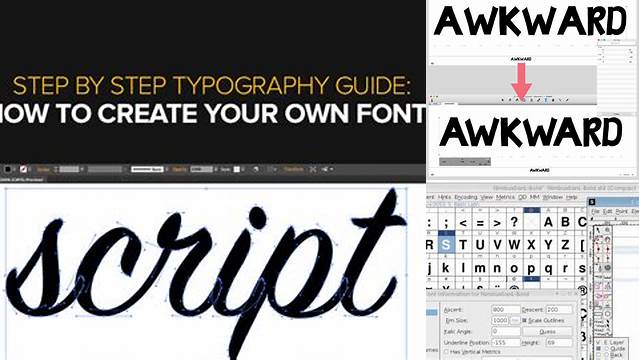
Hey guys! Ever thought about designing your own font? It's seriously cool, and guess what? You don't need to be a tech wizard or spend a fortune. With a free font creator, you can turn your handwriting, doodles, or even just your ideas into a unique font that you can use everywhere. Think of it – your own personal typeface! This guide will walk you through everything you need to know, from choosing the right software to exporting your finished font. Let's dive in and get creative!
H2: Diving into the World of Free Font Creation
So, what exactly is a free font creator? Well, it's a software program that lets you design and build your own fonts without any cost. These tools usually provide a range of features, from basic letter-drawing tools to more advanced options like kerning and hinting. The beauty of it is that you can create a font that perfectly matches your style or a specific project, something that's impossible to get from generic, pre-made fonts. Imagine designing a font for your website, a personal project, or even to sell online! The possibilities are endless. What makes this even more exciting is the fact that you can start with absolutely zero experience in font design. The programs are generally user-friendly, and there are tons of tutorials available online. The journey to creating your own font is a learning experience, and it is extremely satisfying to see your own font come to life and use it. The initial setup will include the process of selecting the right software. This will ensure a smooth journey into font creation. Different software comes with different advantages, so it is important to do your research. Then, get ready to unleash your creativity and have fun with it! Don't be afraid to experiment with different styles, shapes, and sizes until you find something you love. There's no right or wrong way to do it, so just enjoy the process of creating something unique. And don't forget to practice regularly; the more you practice, the better you'll become at designing fonts.
H3: Understanding the Basics of Font Design
Before jumping into a free font creator, let's get a grip on some fundamental design concepts. First, you need to grasp the core components of a font: glyphs, which are the individual characters (letters, numbers, symbols). Then, there's the font's structure: the x-height, ascenders, descenders, and baseline, which help define the character's proportions. These elements work together to create the overall look and feel of your font. Consider how your letters connect. Do they have serifs (the small lines at the end of strokes) or are they sans-serif (without serifs)? The spacing between letters (kerning) and the spacing between lines of text (leading) also play crucial roles in readability. Experimentation is key! Try sketching out your letters on paper first. This gives you a feel for the forms. Think about the purpose of your font. Is it for headlines, body text, or display purposes? Each of these scenarios will require a different design approach. A good headline font might be bold and eye-catching, while body text needs to be highly legible. Don't be afraid to borrow inspiration. Study existing fonts, analyze what makes them work. However, remember not to copy! Instead, create your own unique style. Learning the basic concepts will save you a lot of time and effort later. Always check the kerning and spacing of your font. These two factors are crucial for readability. Be prepared to experiment, and have fun creating!
H2: Choosing the Right Free Font Creator Software
Alright, now it's time to find the perfect free font creator for your needs. Several excellent options are available, and the best one for you will depend on your experience level and the features you need. Some popular choices include FontForge, a powerful and open-source program suitable for experienced users. BirdFont is another great option, with an emphasis on vector graphics. Its user-friendly interface makes it perfect for beginners. Online font creators, like Calligraphr, are another good option, especially if you prefer working directly in your browser. When choosing, think about ease of use. If you're a beginner, a program with a simple interface and clear tutorials is ideal. Consider the features that are available. Do you need advanced kerning or hinting controls? Is it easy to create different weights (e.g., bold, italic) of your font? Check for compatibility with your operating system (Windows, macOS, Linux). Make sure the software supports the font formats you need (TTF, OTF). Read reviews and watch tutorials. See what other users say about the program. This will give you valuable insights into its strengths and weaknesses. Try out a few different programs to see which one suits your workflow the best. Some creators offer free trials or limited versions, which lets you test the waters before you commit. Take your time. Research and comparison are the keys to finding the perfect tool for creating fonts.
H3: Exploring the Features of Different Font Creation Tools
Let's take a deeper dive into the features offered by various free font creator tools. FontForge, for instance, is packed with advanced features, including support for complex scripts, hinting (optimizing the font for different screen resolutions), and OpenType features (ligatures, alternates, etc.). BirdFont emphasizes ease of use, with intuitive tools for drawing glyphs and creating a visually appealing font. It offers a good balance of features for beginners. Online tools like Calligraphr allow you to create a font based on your handwriting. You can print templates, fill them in with your handwriting, scan them, and upload them to generate a font. This approach is perfect for those who want to digitize their handwriting or create a personal signature font. Some tools offer direct drawing capabilities, allowing you to create glyphs from scratch within the program. Others let you import existing vector graphics (e.g., from Adobe Illustrator or Inkscape). Most tools include kerning and spacing adjustments, which are critical for fine-tuning the appearance of your font. You'll want to experiment with these settings to ensure your font looks professional and readable. Don't be afraid to look for features that may suit your needs. A good program will help you streamline your workflow and create high-quality fonts.
H2: Step-by-Step Guide: Creating Your First Font
Ready to create your first font with a free font creator? Here's a simple step-by-step guide:
- Plan your font: Decide on the style of your font. Sketch out your letters on paper or create a mood board for inspiration. Consider the intended use of the font (headline, body text, etc.).
- Create your glyphs: Open the software and begin drawing the glyphs. Start with the basic letters (A, B, C, etc.) and numbers (0-9). Some programs let you draw directly, while others let you import vector files.
- Adjust spacing and kerning: Use the kerning and spacing tools to adjust the space between each letter. This is very important for readability.
- Add characters: Add special characters and symbols. This is very important in creating a complete font.
- Test your font: Test your font in a text editor or design program. Make sure all characters look good and readable.
- Export your font: Export your font in the desired format (TTF or OTF). Once the font is exported, you can install it on your computer.
- Install your font: Install the font on your computer. Then, you can use it in your projects.
H3: Designing Your Glyphs: The Heart of Font Creation
Designing the glyphs is the heart of font creation using a free font creator. This is where your creativity shines! Start with the fundamental characters, like A, a, B, b, and the numbers 0-9. Sketch these out on paper first. This will help you visualize the forms and proportions. When you are ready, use the software's drawing tools to create the glyphs. Use vector-based drawing tools for sharp, scalable glyphs. Pay attention to the details – the curves, the lines, and the serifs (if your font has them). Consistency is key. Ensure all your glyphs share a consistent style and weight. Maintain consistent spacing between letters (kerning). A good font is a balanced font. Explore different styles – serif, sans-serif, script, etc. – and find one that suits your vision. Don't be afraid to experiment. Trying out different styles will help you to find something that you like. Use the software's tools to make adjustments. Most software allows you to make modifications to the design. Keep in mind the context of your font. Different fonts will look good on different projects. The goal is to create legible and appealing glyphs. You can use the tools that can help you make the process easier.
H2: Mastering Spacing and Kerning for Readability
Spacing and kerning are absolutely essential in font creation with a free font creator. These settings directly impact the readability and overall appearance of your font. Kerning refers to adjusting the space between specific letter pairs (e.g., VA, Wo, etc.). Poor kerning can make a font look awkward and hard to read. Spacing refers to the overall horizontal distance between characters. This includes the space around the letters. Begin by setting a consistent space for all characters. Then, manually adjust the space between pairs to improve their appearance. Many font creator tools offer automated kerning, but manual adjustments are usually necessary. Test your font extensively in different text sizes and contexts. Does it look good as headlines? As body text? Fine-tune the kerning and spacing until you are satisfied. Pay special attention to problematic letter combinations (e.g., those with a lot of curves or diagonal lines). The goal is to create a visually pleasing and comfortable reading experience. Take a lot of time on spacing and kerning, as they are crucial in creating fonts.
H2: Exporting and Installing Your Custom Font
Once you have completed your design using the free font creator, it's time to export and install your custom font. This means converting your font design into a file format that your computer can use. The most common format is TTF (TrueType Font), but you might also want to export to OTF (OpenType Font) for more advanced features. The process of exporting your font is usually straightforward. The software will guide you through the options. Make sure to choose a suitable name for your font. Something unique and descriptive will help you easily identify your font. After exporting, the font file will be ready for installation. On Windows, you can right-click the file and choose